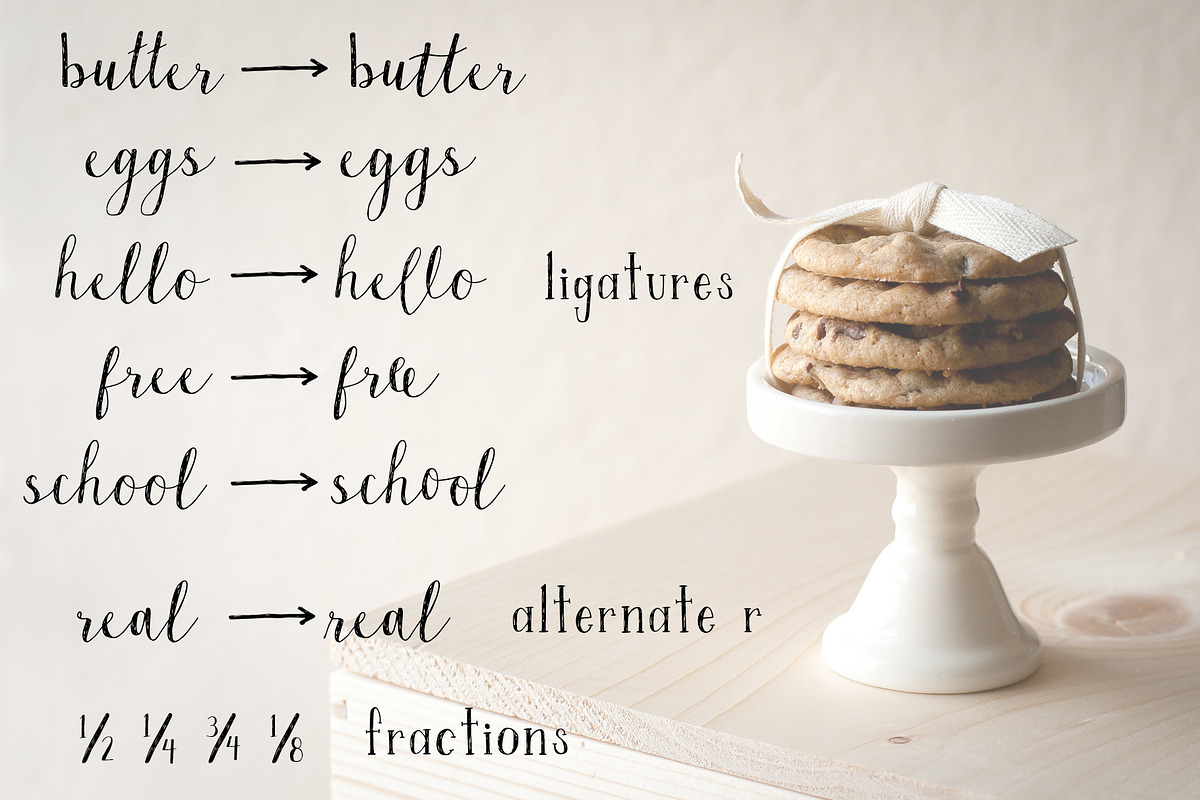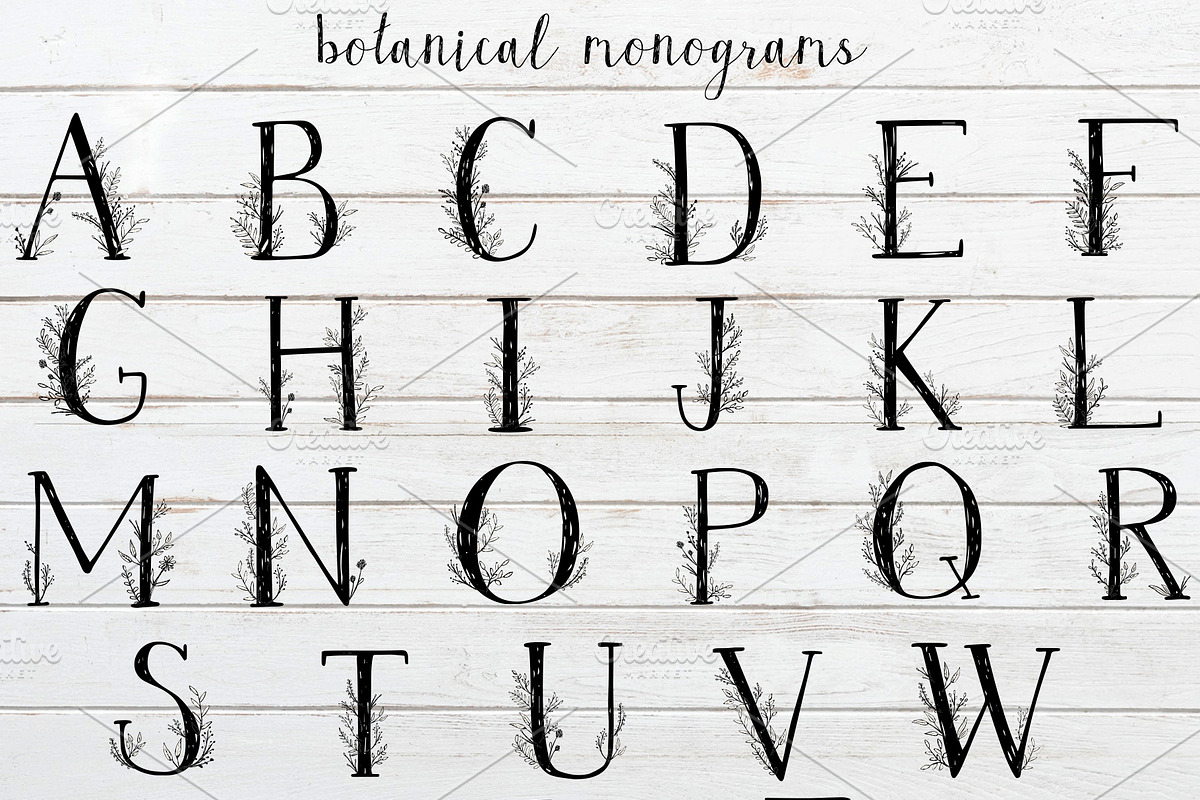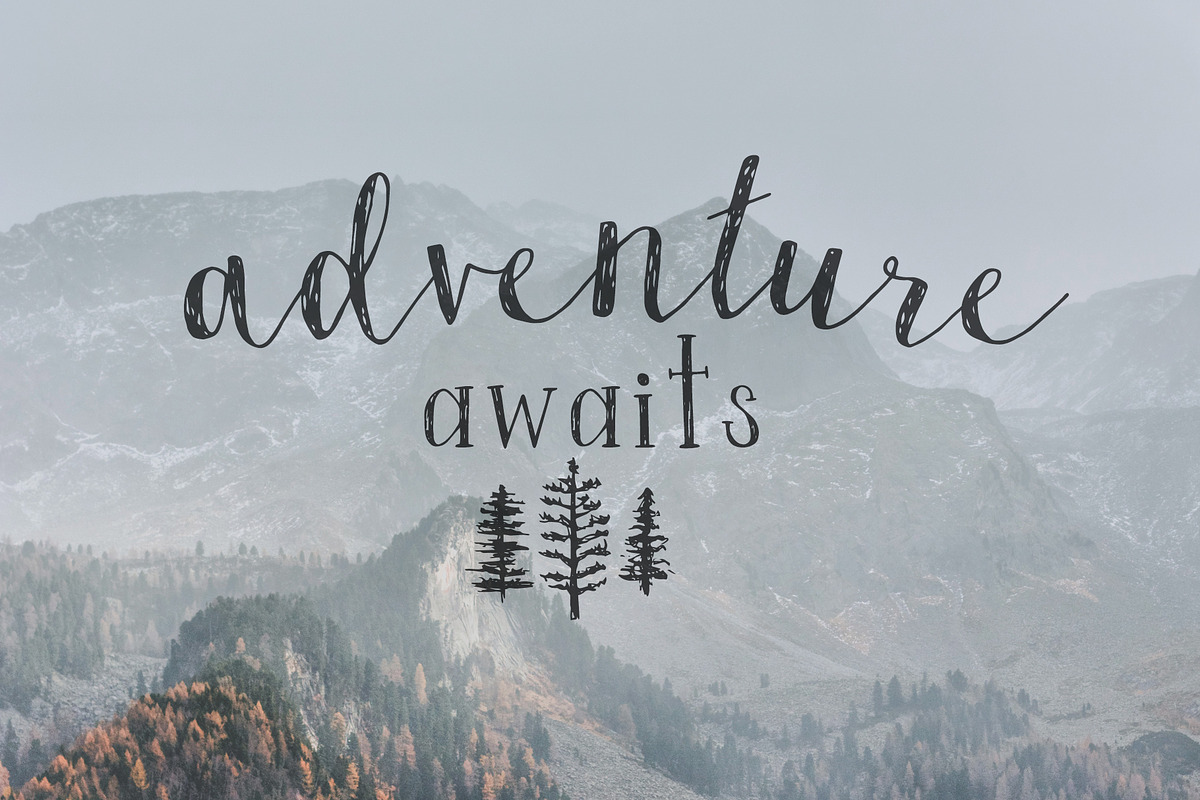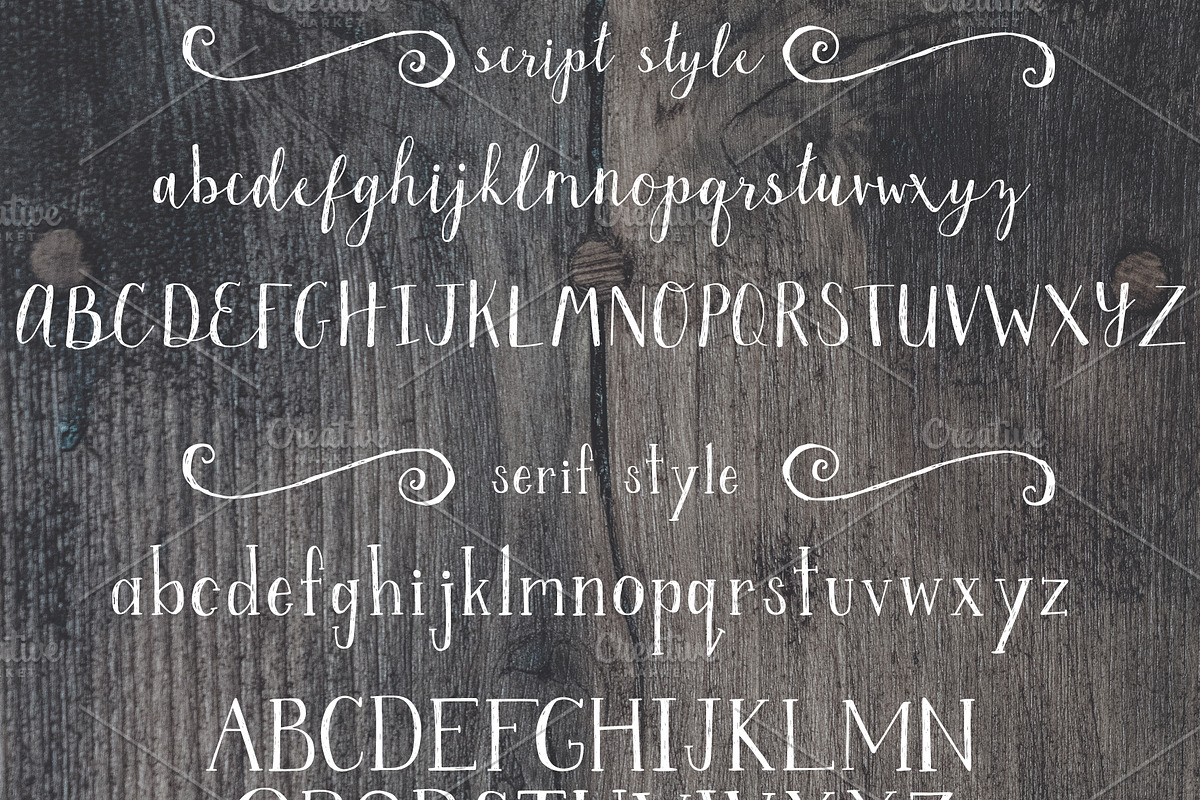
Oatmeal Raisin Font Duo + Graphics
Oatmeal Raisin is a rustic handwritten font inspired by the feeling of a fall afternoon and the smell of warm cookies baking in the oven. I hand drew each letter with an ink pen and wanted to retain the texture and imperfections created by the pen on the paper.
This font duo is perfect for blog posts, packaging design, logo creation, branding, and more! It has a full script and serif style including punctuation and multilingual (Western European) support. It features standard and discretionary ligatures.